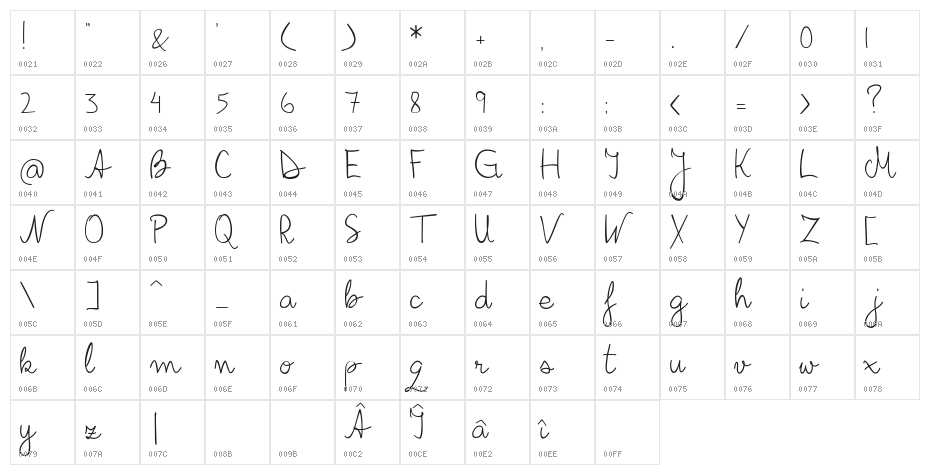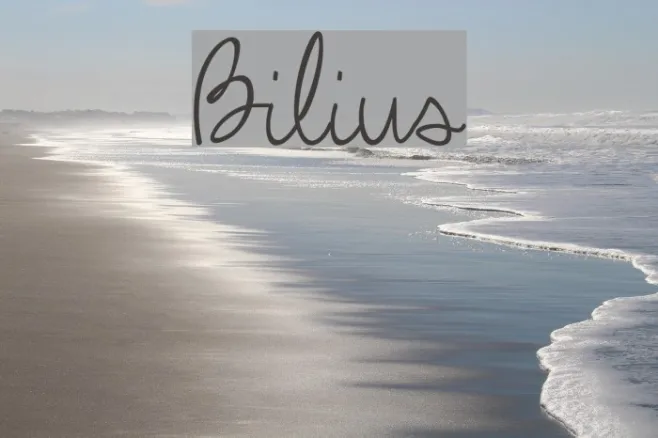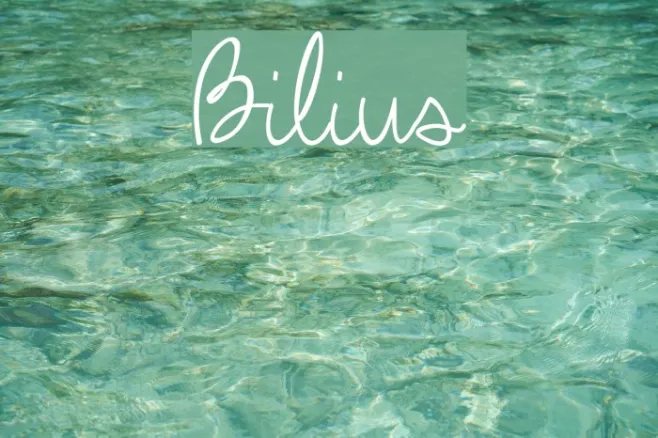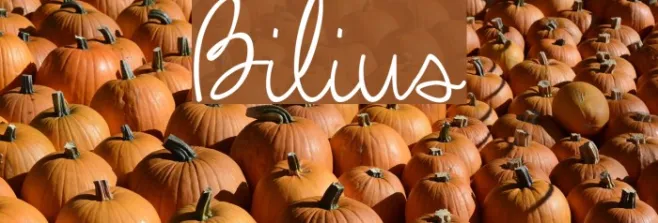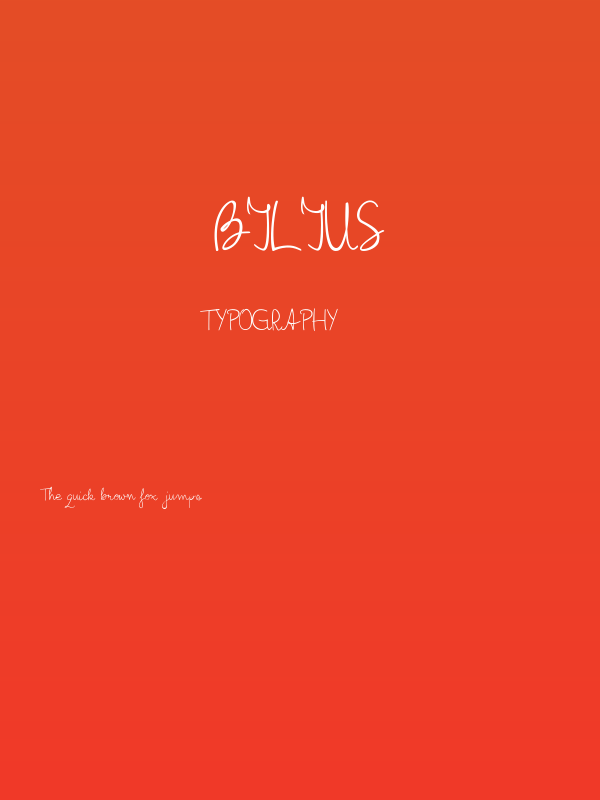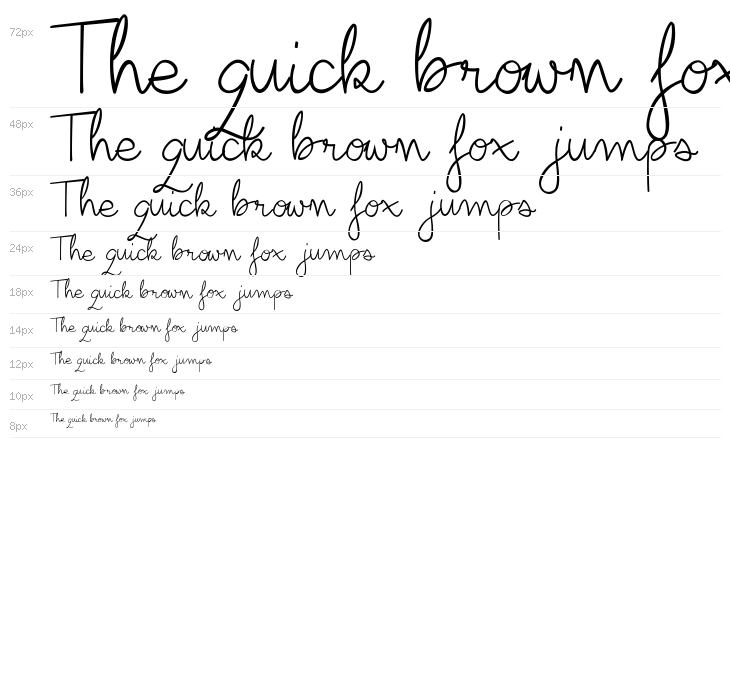
Bilius Font
Bilius Description
This font features a playful and whimsical handwritten style, characterized by its fluid and flowing letterforms. The uppercase letters are tall and slender, with a slight slant that adds a dynamic feel. Lowercase letters maintain a consistent loop and curve, enhancing the casual and friendly appearance. The numerals are clear and easy to read, with a similar playful touch. Special characters are creatively designed, maintaining the overall aesthetic. This font exudes a sense of fun and creativity, making it suitable for projects that require a personal and informal touch.
| Proposed Projects | Ideal for greeting cards, invitations, children's books, and creative branding projects. |